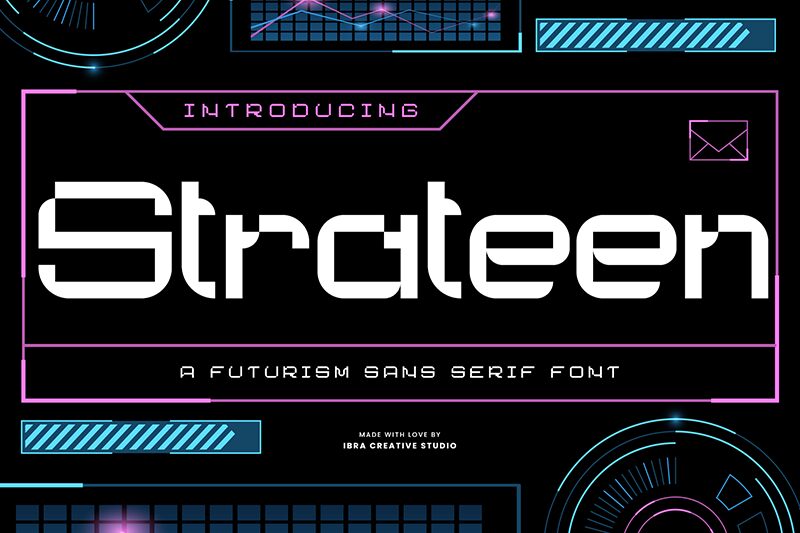
Strateen Personal Use Regular
Strateen font by Ibra Creative Studio is a free bold futuristic display font. Built around rounded-square geometry, it fuses chunky monoline strokes with crisp, clipped corners and sleek horizontal slices, giving each letter a clean, modular snap. The rhythm is tight and forward-leaning, with compact counters that feel engineered rather than drawn-techy without going cold.
Using Strateen, headlines lock up with authority on sci‑fi posters, esports logos, tech branding, app splash screens, album covers, packaging, and event flyers. This free font shines at large sizes; add a touch of letterspacing for airflow. Pair it with a light, neutral grotesk for body copy to let the bold futurism take the lead.